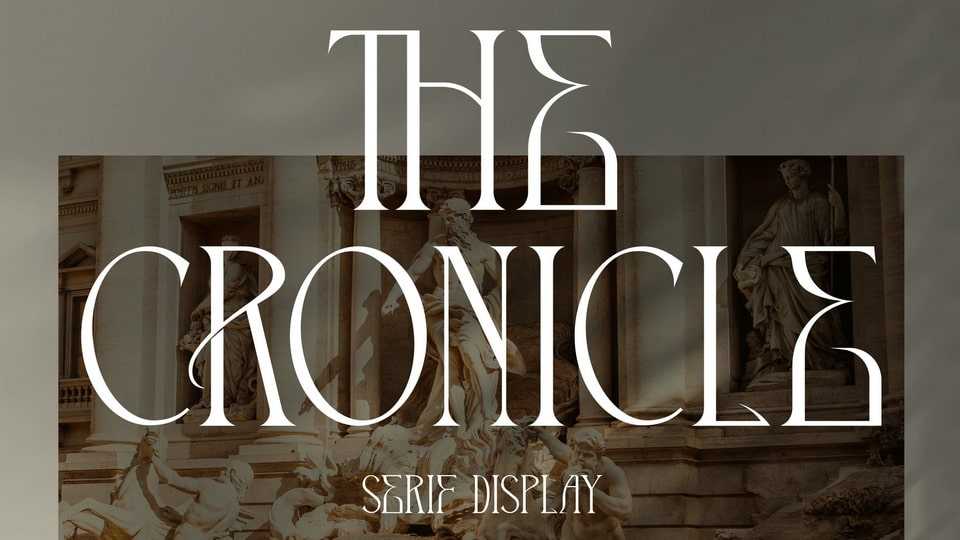
Download The Chronicle font, a modern and, at the same time, classic serif typeface. The Chronicle is perfect for elegant and luxury logos, book or movie title designs, fashion brands, magazines, clothes, lettering, quotes, and many more.